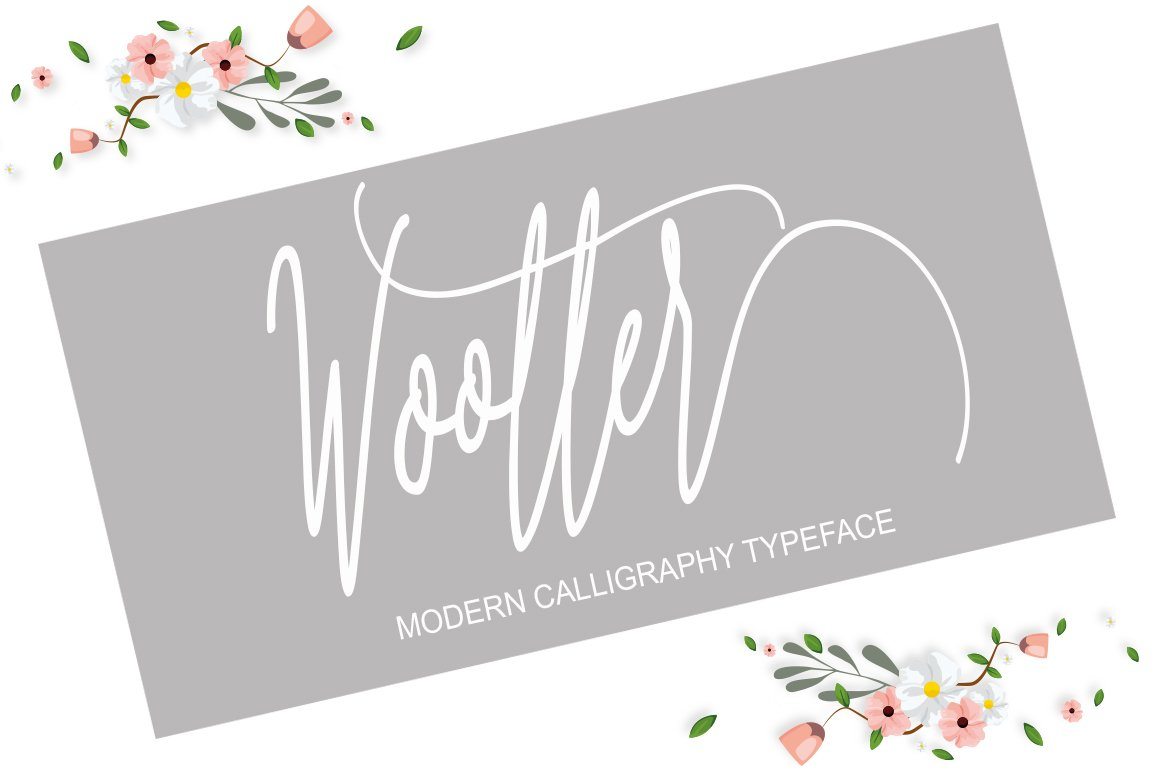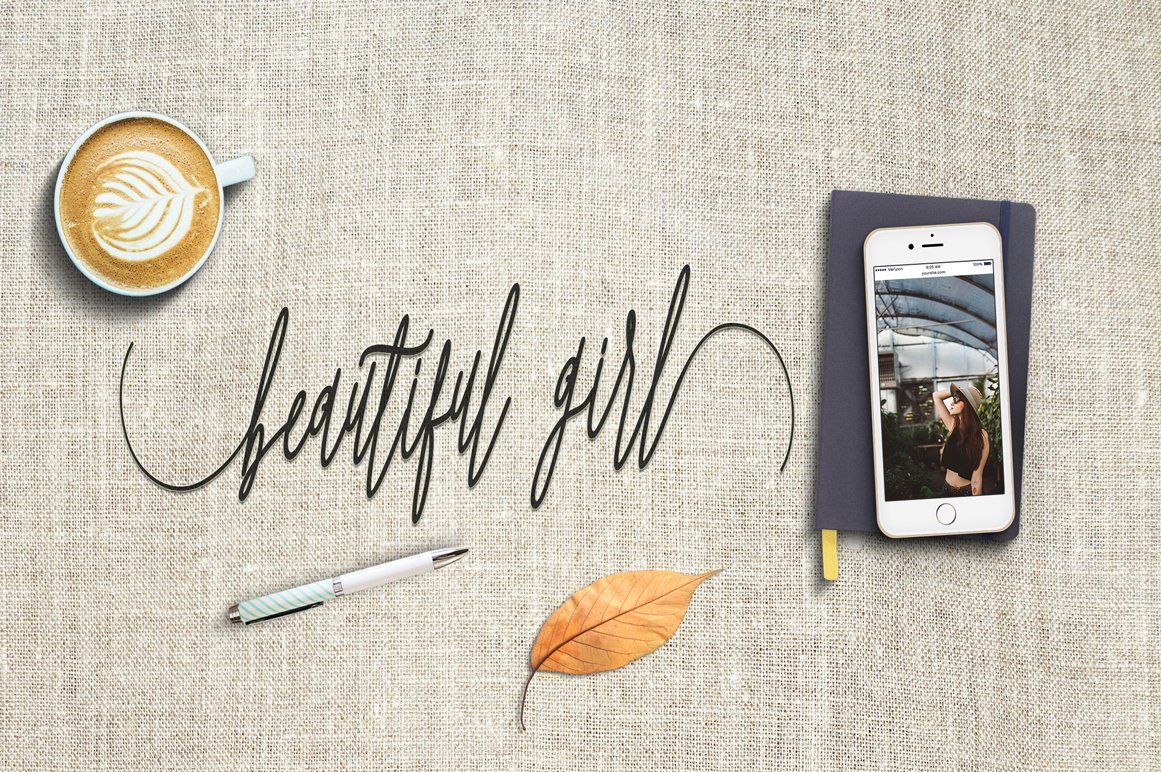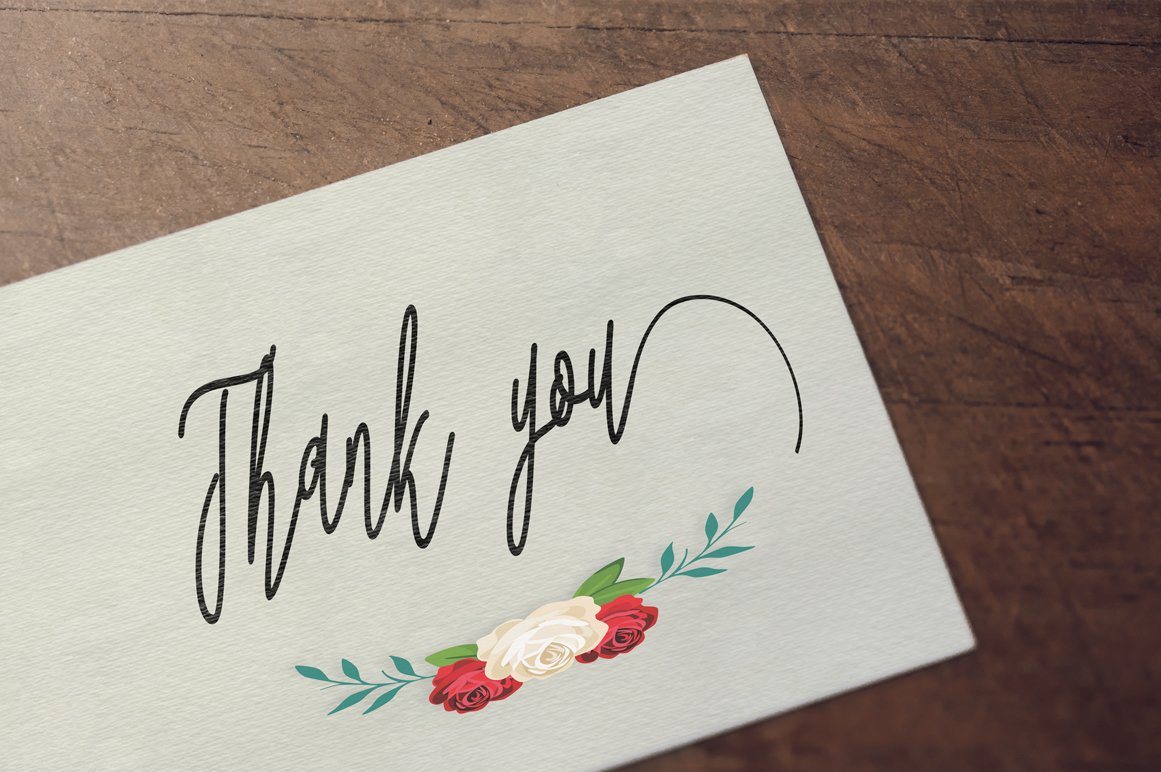
About Wootter
Truelike Script is a soft and beautiful font that has a connection to the upper part of the letter, this is something unique but very beautiful, luxury and charming. This font is to complement your design needs in making amazing works. Truelike Script is perfect for branding, wedding invitations, magazines, mugs, business cards, quotes, posters, and many more that you can use on your big project will be very beautiful. Truelike Script has been equipped with the OpenType feature and has many glyphs. and of course having a lot of flying machines will be able to choose letters to your liking, lots of variations and choices for each letter, so you can adjust your design choices and also have other languages ​​supported. which you will get in this package: * Truelike Script. TTF * Truelike Script. OTF * Truelike Script Font Web * Truelike Script PUA Unicode (Private Use Areas) do not hesitate to buy and have this gorgeous font, as i will soon be updating for the version Programs that support in this font is a Photo Shop, Adobe Illustrator, Adobe Indesign, Corel Draw and Microsoft Office. Can be used for various purposes.such as headings, logos, wedding invitation, t-shirt, letterhead, signage, lable, news, posters, badges etc. To enable the OpenType Stylistic alternates, you need a program that supports OpenType features such as Adobe Illustrator CS, Adobe Indesign & CorelDraw X6-X7. This font is very suitable for use with programs that support OpenType features such as Adobe Photoshop Cs / Adobe Photoshop CC, Adobe Illustrator CS / Adobe Illustrator CC, Adobe Indesign and Corel Draw and many more programs that support OpenType. Can be used for various purposes.such as headings, logos, wedding invitation, t-shirt, letterhead, signage, lable, news, posters, badges etc. This font is very suitable for use with programs that support OpenType features such as Adobe Photoshop Cs / Adobe Photoshop CC, Adobe Illustrator CS / Adobe Illustrator CC, Adobe Indesign and Corel Draw and many more programs that support OpenType.